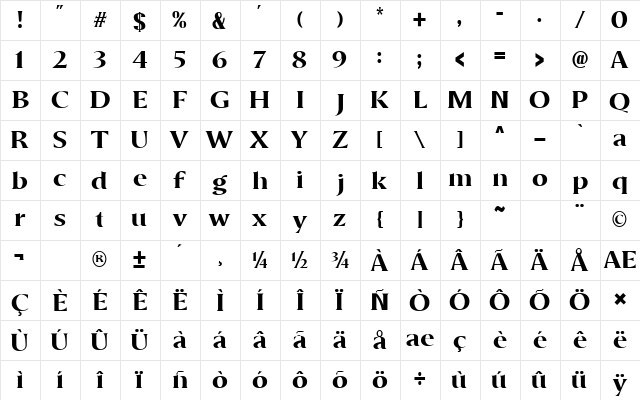
okemo Regular
Design Context for okemo Typeface
okemo offers clean, dependable letterforms without strong stylistic allegiance, making it a practical choice for designers who need flexibility.
Pro Tip: Use okemo in both headline and body roles to test its range before committing to a single application.